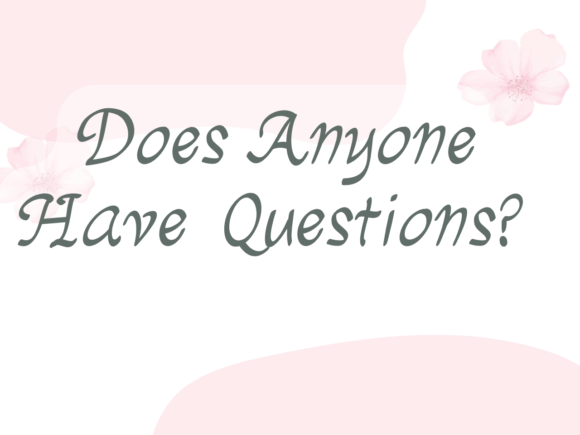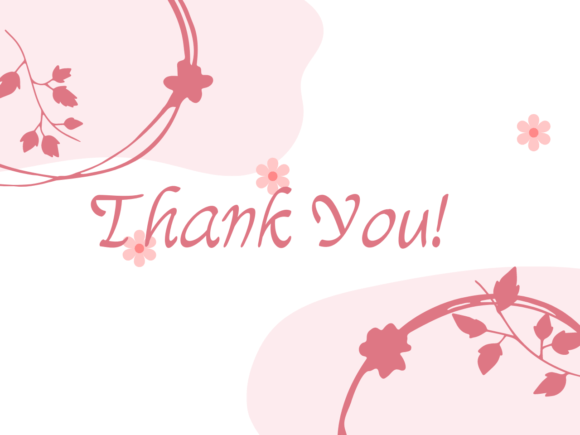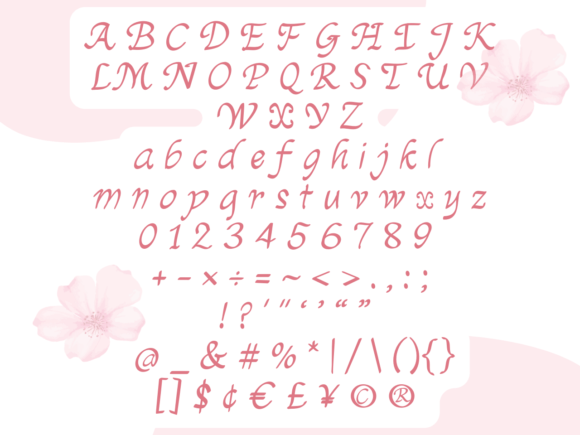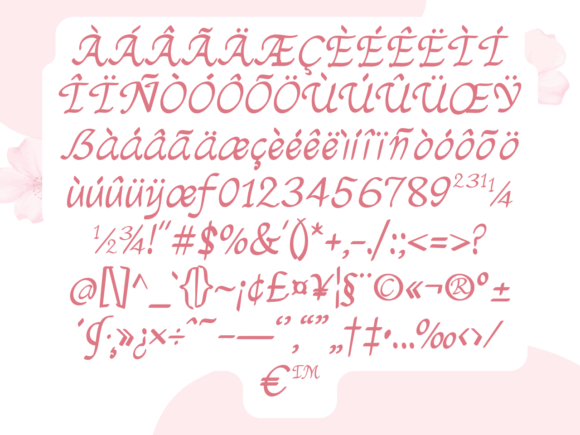
Introduction to Jaci Font
Jaci is a frendly handwritten font.
It is perfect for use on invitations, greeting cards, note taking, web design and more .
Key Features of Jaci Font
Why Choose Jaci Font?